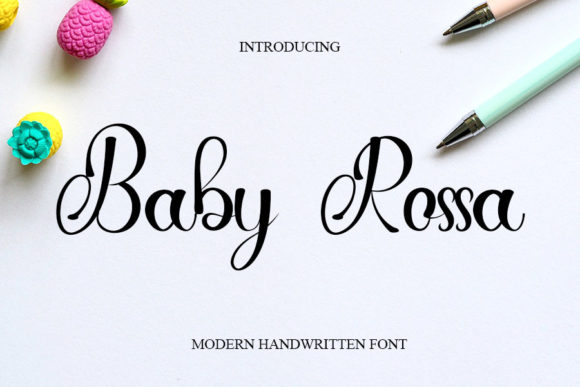
Indulge in the artistry of Baby Rossa Font, a captivating script font that will ignite your creativity and bring your designs to life. With every stroke, this font embodies the elegance of handwritten notes, adding a touch of whimsy and delicacy to your projects.
Whether you're a seasoned designer or just starting your journey, Baby Rossa Font is the perfect companion. Its casual and relaxed style invites you to experiment and explore your imagination. From heartfelt letters to whimsical invitations, this font will transform your words into works of art.
Embrace the charm of Baby Rossa Font and let your designs blossom. Its versatility will captivate your audience, leaving a lasting impression that will make your creations stand out from the crowd. Step into the world of Baby Rossa Font and discover the endless possibilities that await you.